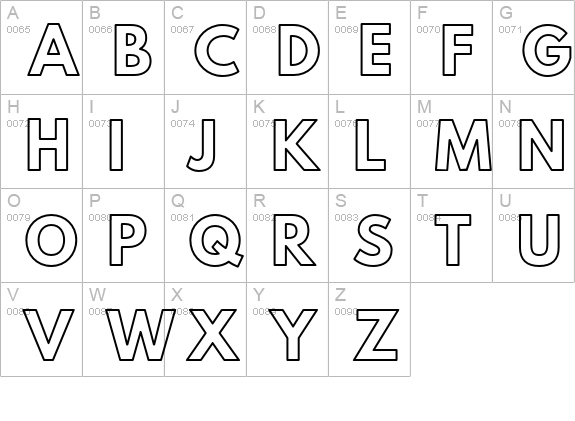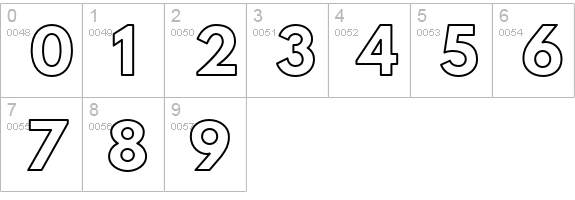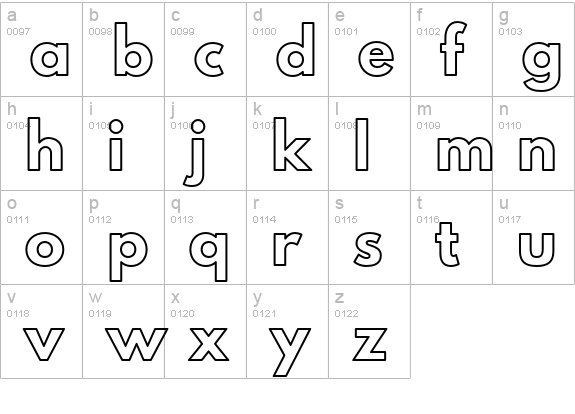
Poland Can Into Big Writings Outline font is a stunning display font that exudes elegance and sophistication. With its unique outline design, it adds a touch of modernity to any project or creative endeavor. This font is perfect for those who want to make a bold statement and captivate their audience. What makes Poland Can Into Big Writings Outline font even more enticing is that it is freely available to download at FontsMarket.com. You can now enjoy the beauty of this font without any cost or hassle. Whether you are a graphic designer, a blogger, or a creative enthusiast, this font will elevate your designs to new heights. With its clean lines and attention to detail, Poland Can Into Big Writings Outline font is versatile and can be used in various applications. From logos and branding to website headers and social media posts, this font is sure to make a lasting impression. Downloading this font from FontsMarket.com is a breeze. Simply visit the website, search for Poland Can Into Big Writings Outline font, and click the download button. Within moments, you will have the font at your fingertips, ready to be used in your next project. Don't miss out on the opportunity to enhance your designs with the elegance and style of Poland Can Into Big Writings Outline font. Download it for free at FontsMarket.com and let your creativity shine.